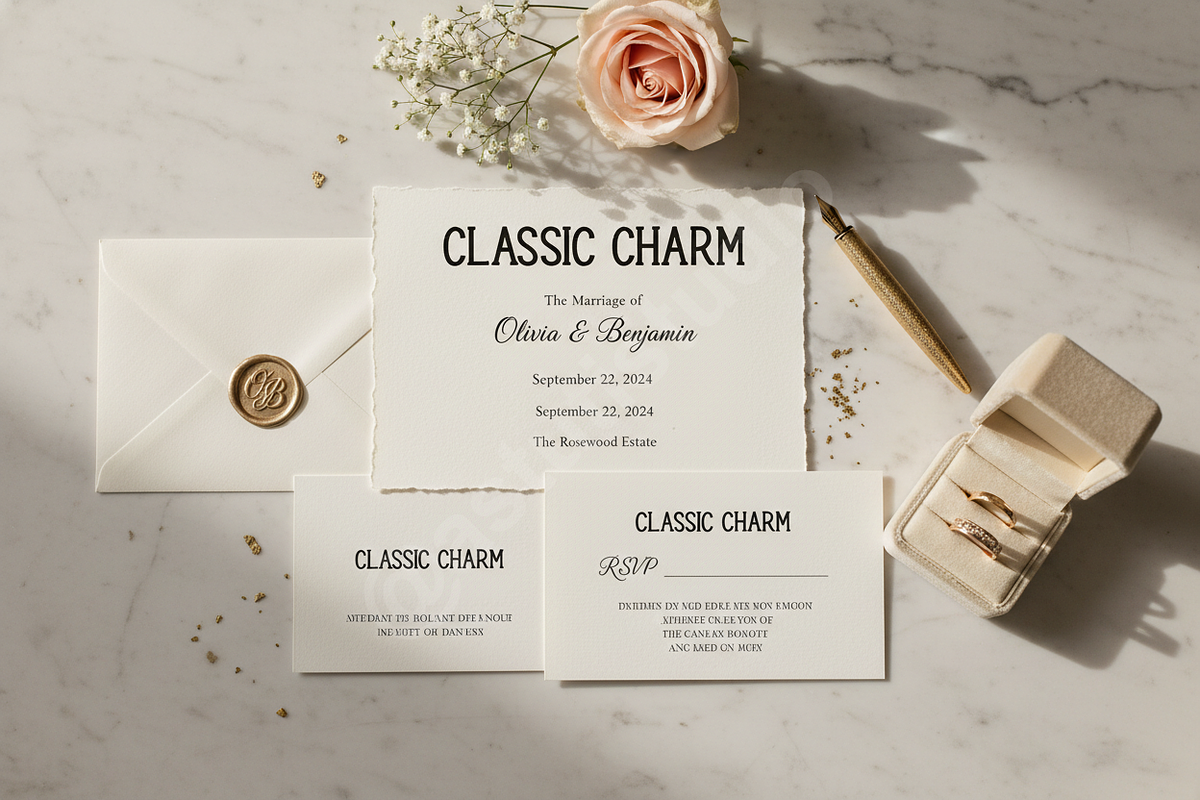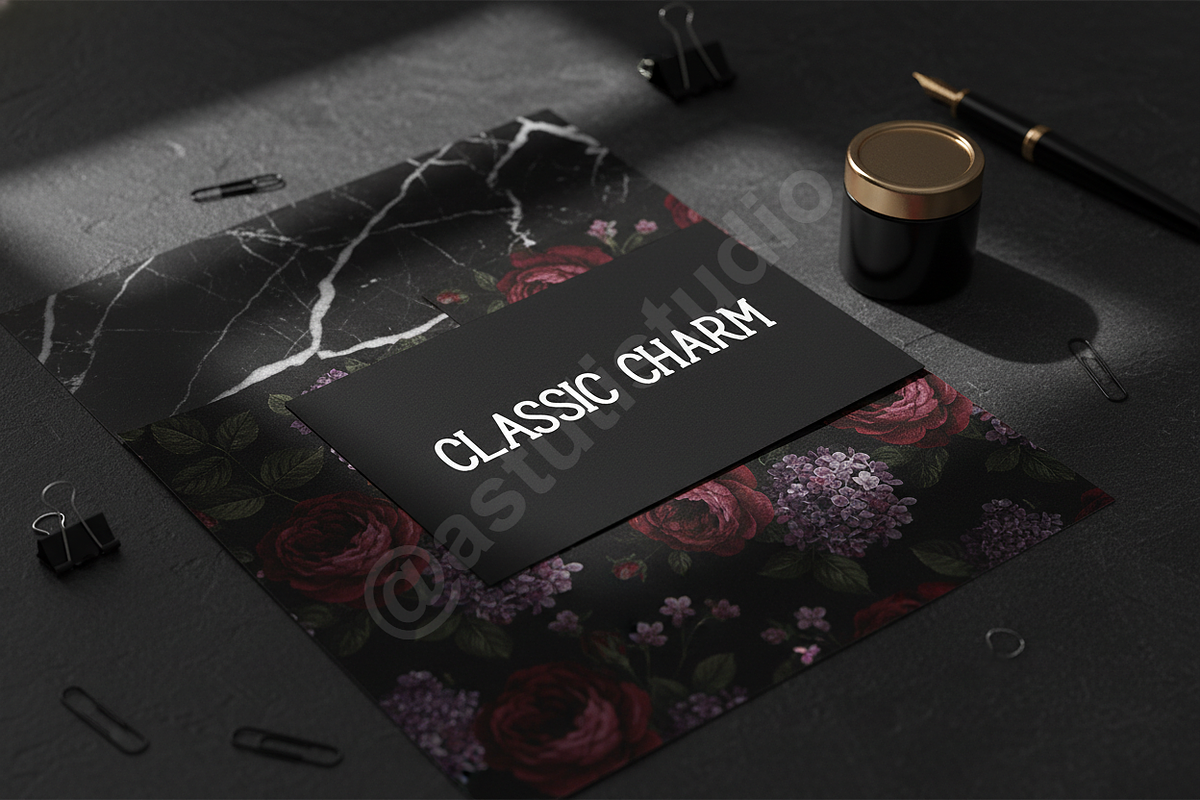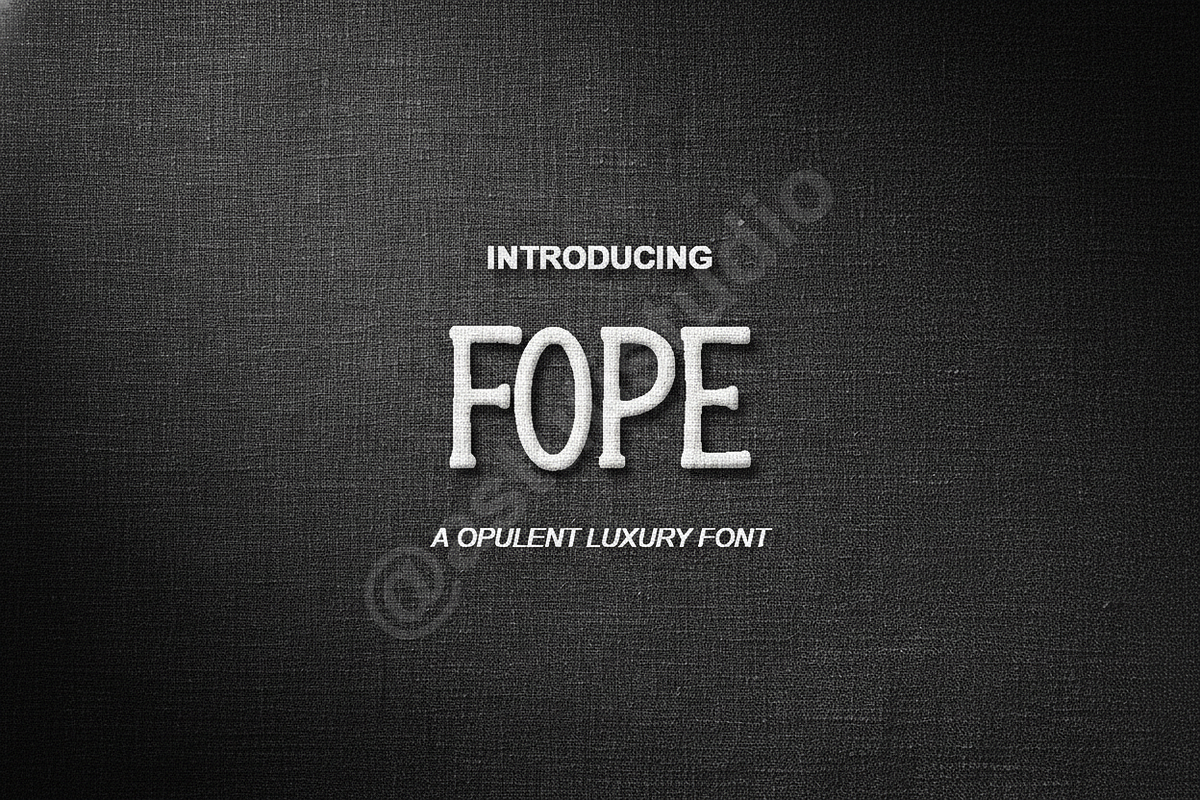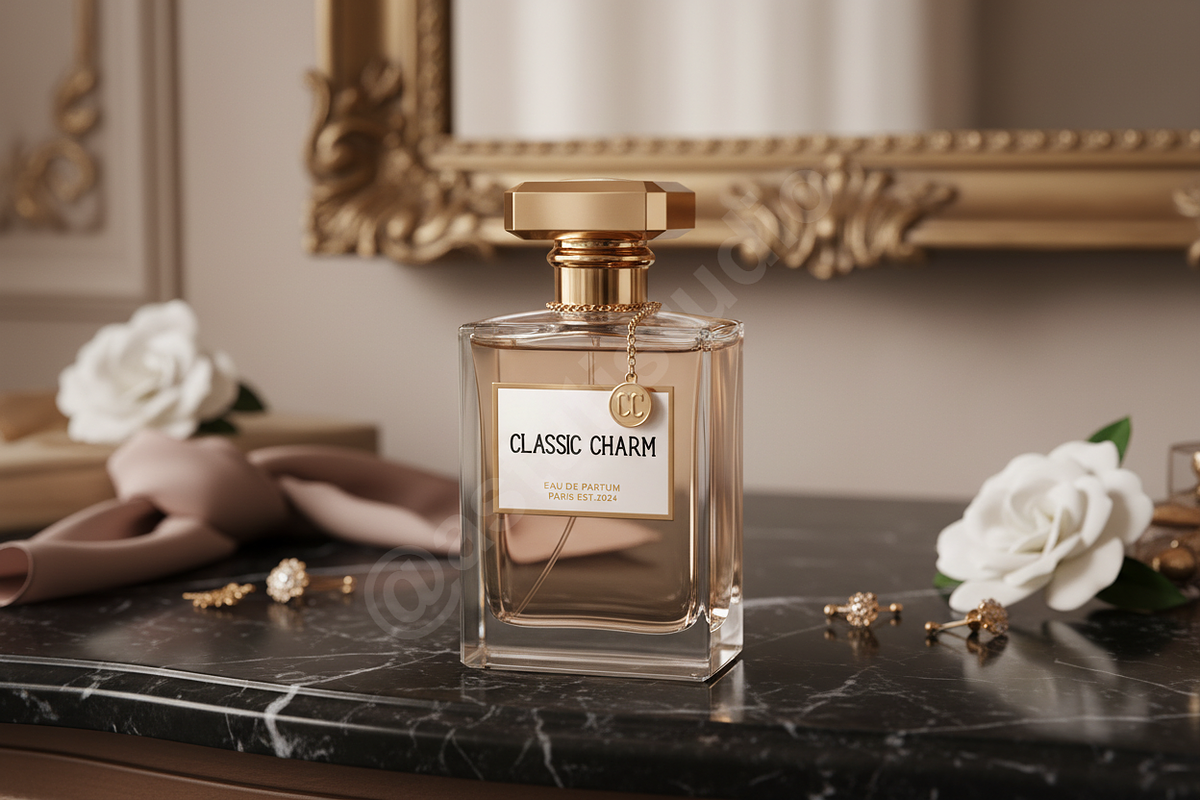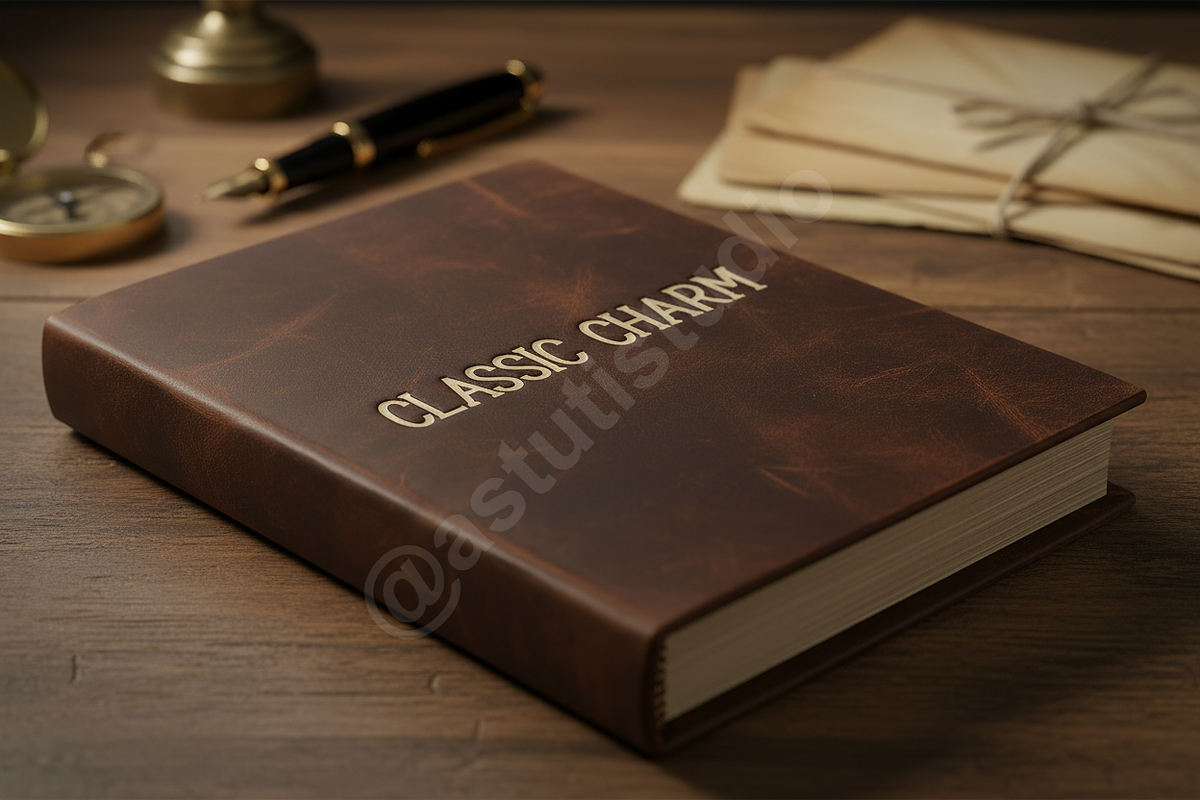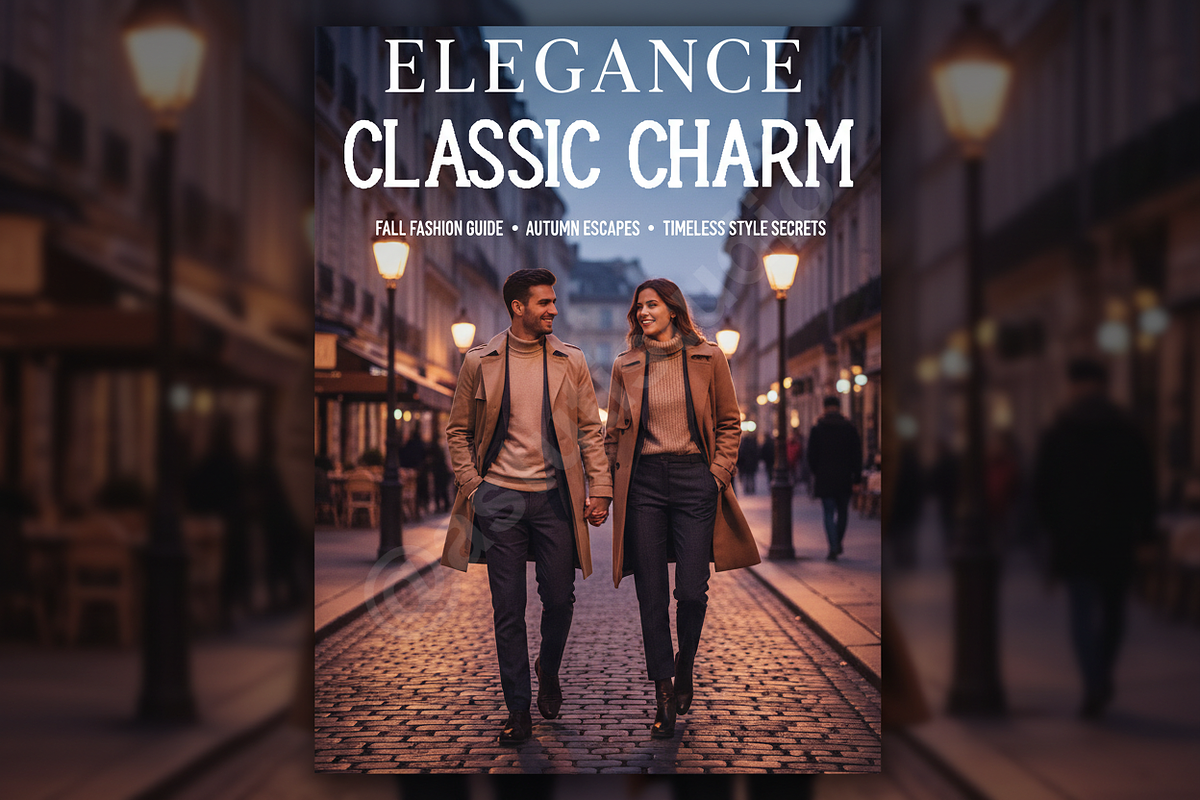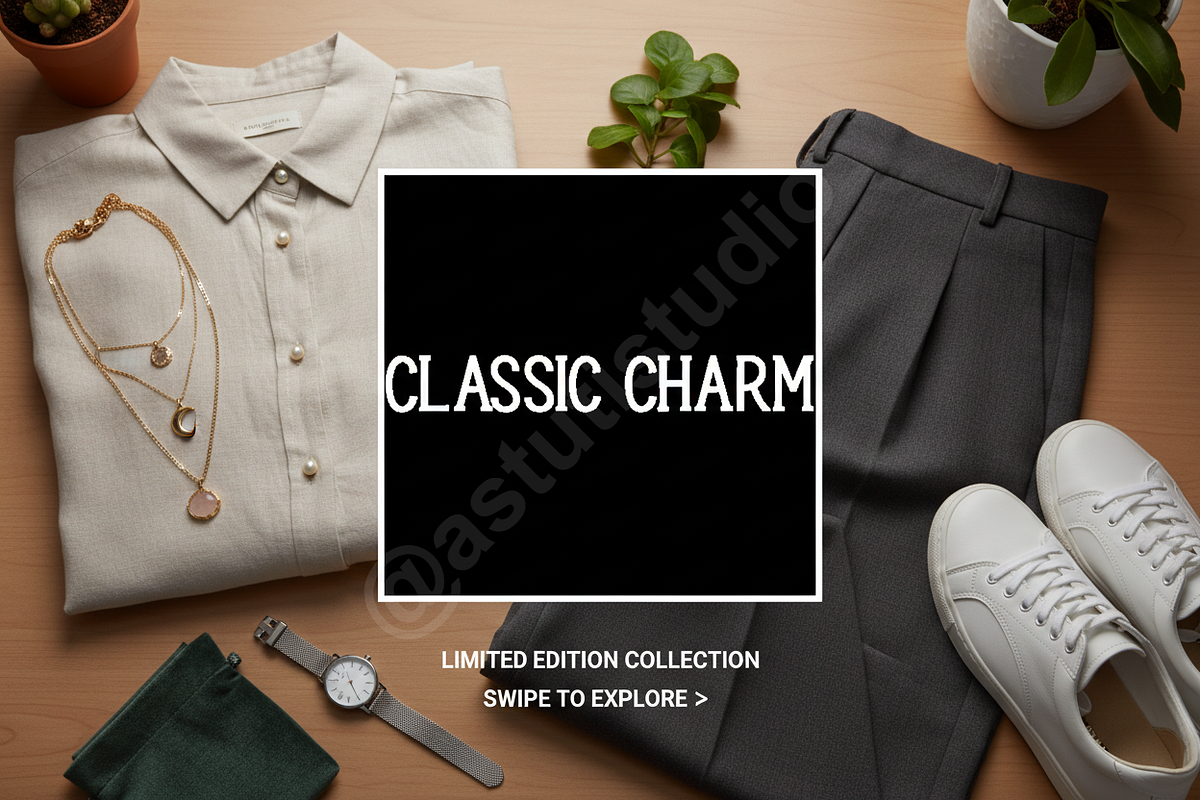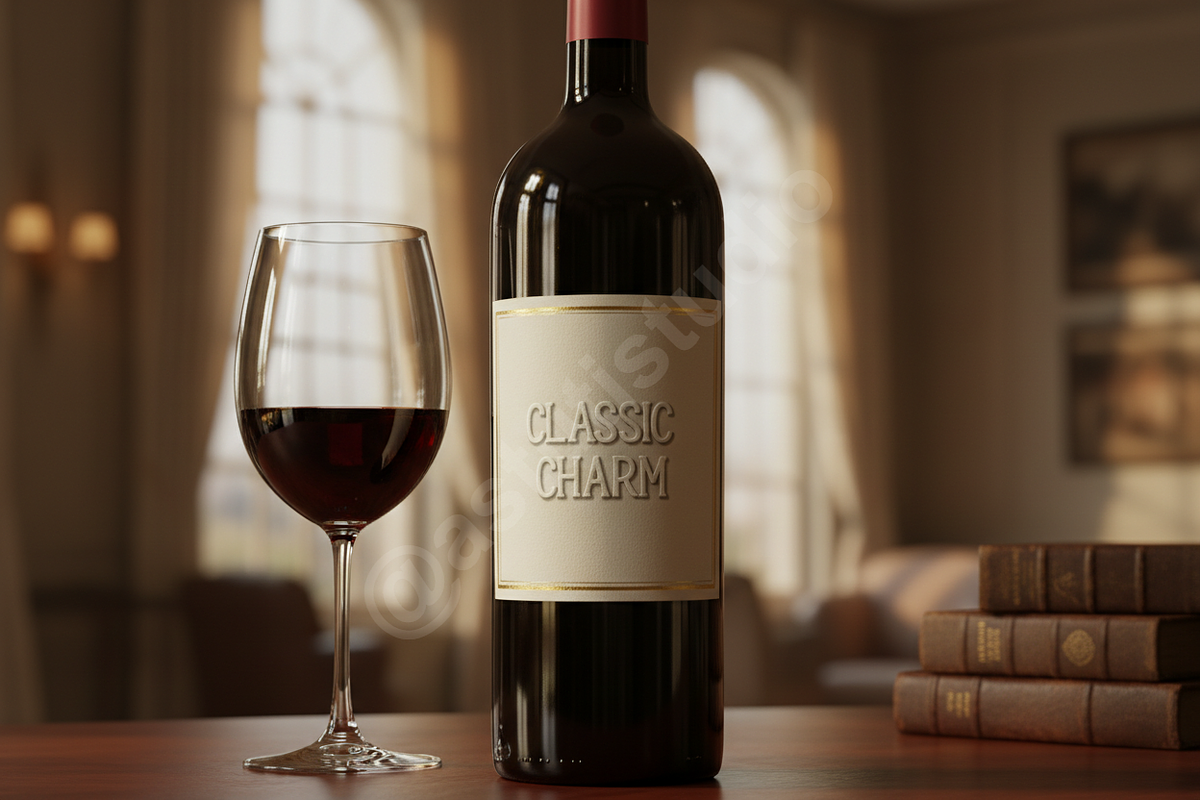
Fope | Elegant Luxury Display Typefa
INTRODUCTION
Introducing Fope, a meticulously crafted modern typeface designed for the discerning creative. Fope embodies timeless elegance and contemporary sophistication, making it the definitive choice for projects demanding a luxurious aesthetic. Its balanced proportions and refined curves ensure maximum impact in both large display settings and detailed editorial layouts.
PREMIUM FEATURES & VERSATILITY
Fope excels in high-stakes visual communication, offering unmatched clarity and style across various mediums.
- Luxury Branding: Ideal for high-end fashion, jewelry, hospitality, and perfume packaging.
- Editorial Excellence: Perfect for magazine mastheads, sophisticated body text, and impactful article titles.
- Digital & Social Media: Optimized curves maintain elegance and legibility on screens, enhancing premium social media campaigns and website headers.
- Extensive Glyph Set: Includes full punctuation, numerals, and comprehensive international language support.
- Professional Kerning: Meticulously adjusted for seamless, harmonious text flow in all applications.